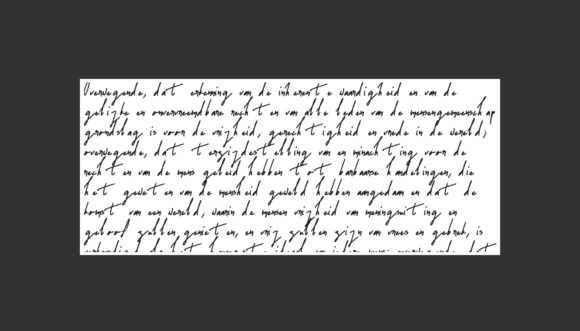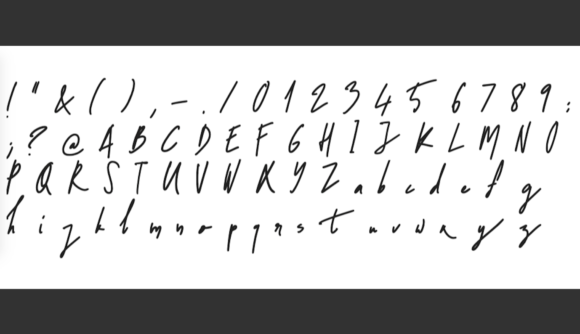
Resort Script Font
About Resort Script Font
Resort is a casual, yet beautiful handwritten font with a stunning feel. It will turn any design project into a stand out!